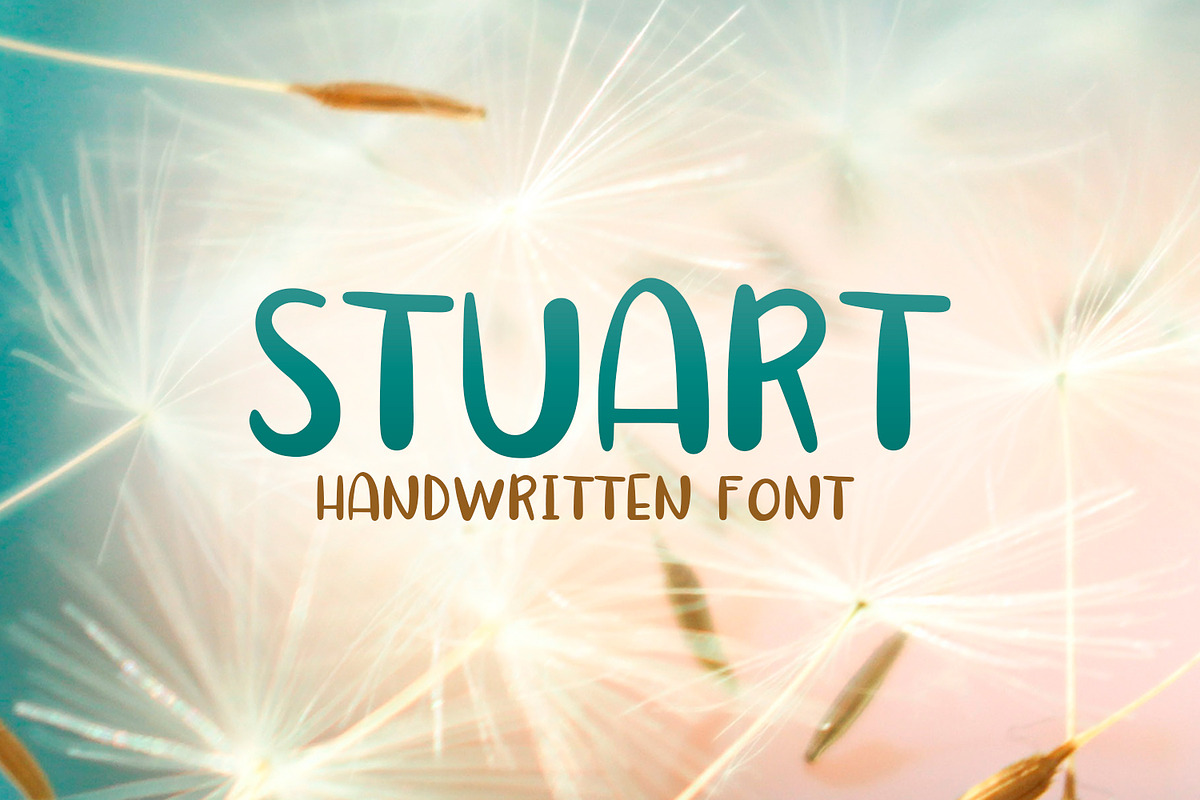
Stuart Font
This is a handwritten font (223 characters) made with love.
Stuart Font by Carolina Valtuille fits naturally into Branding, posters, packaging, typography.